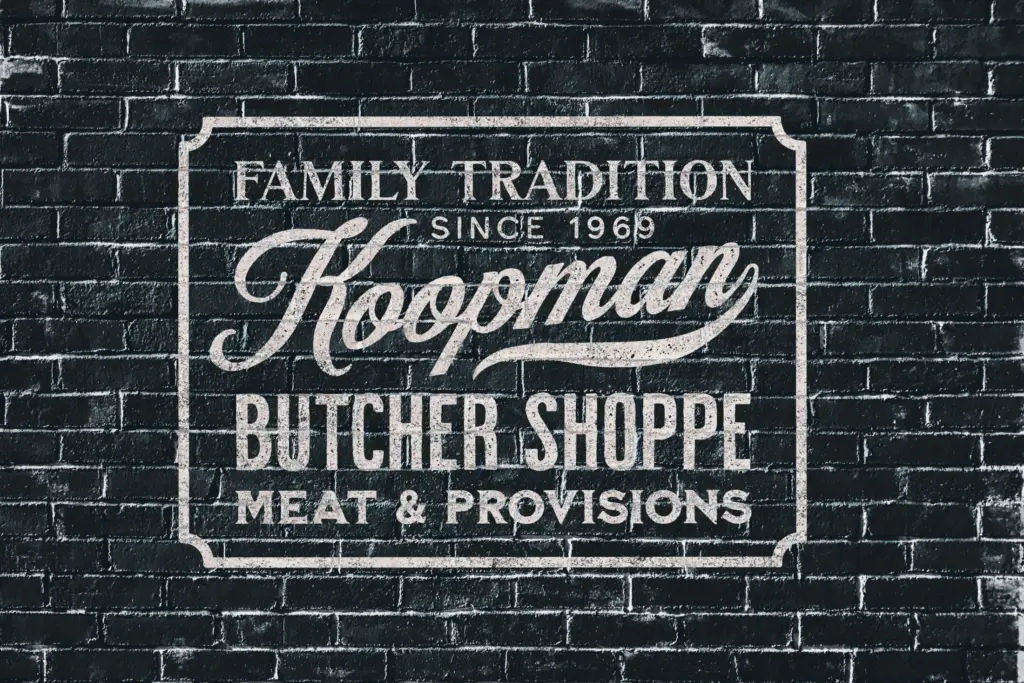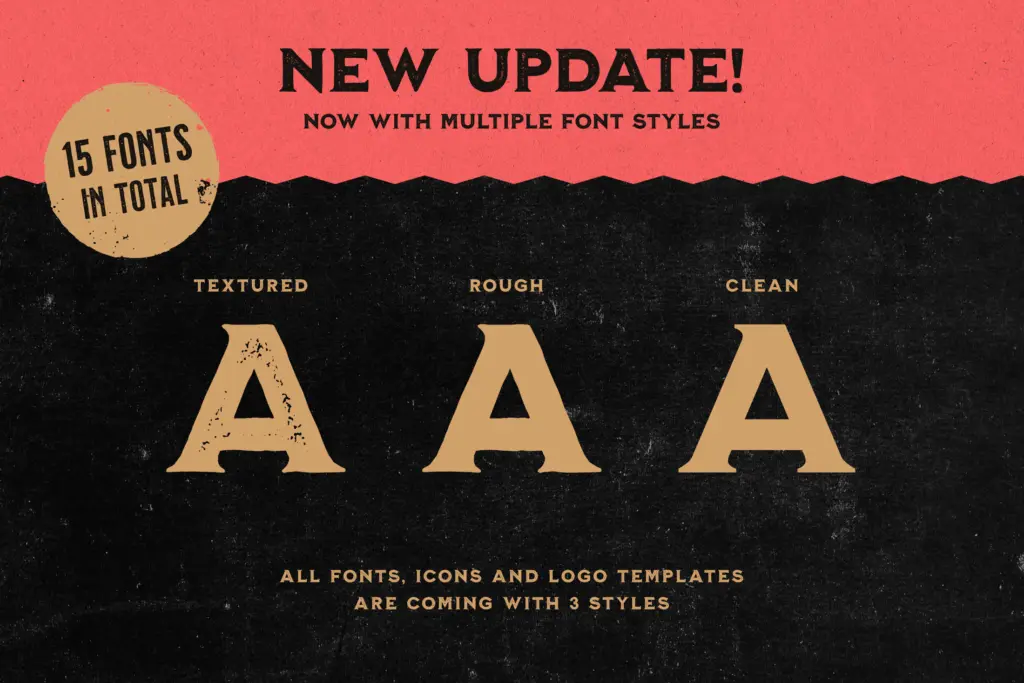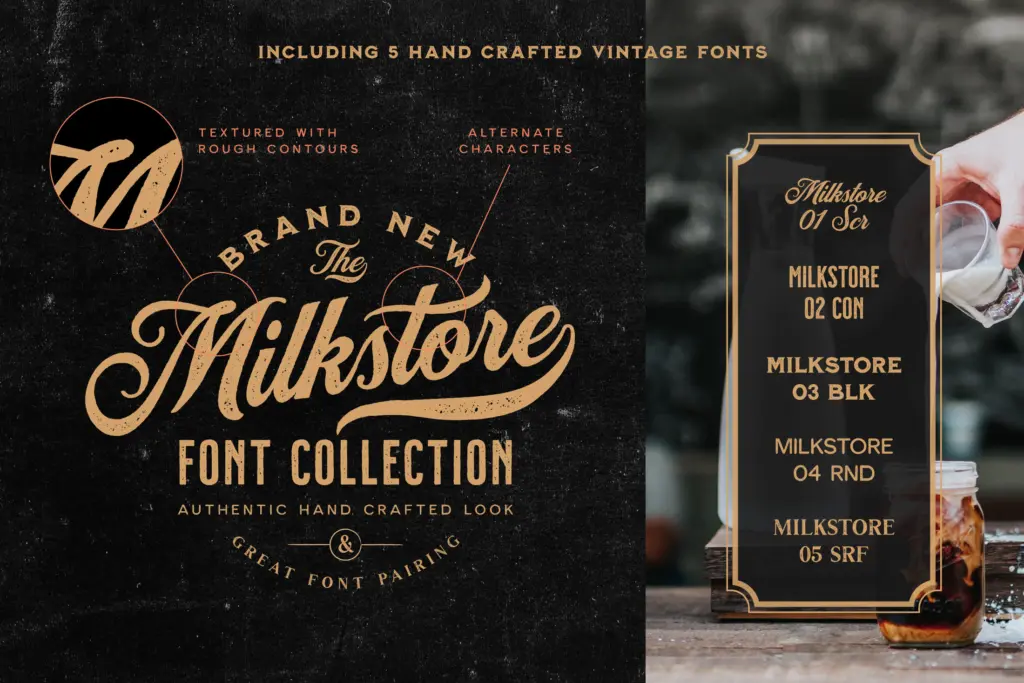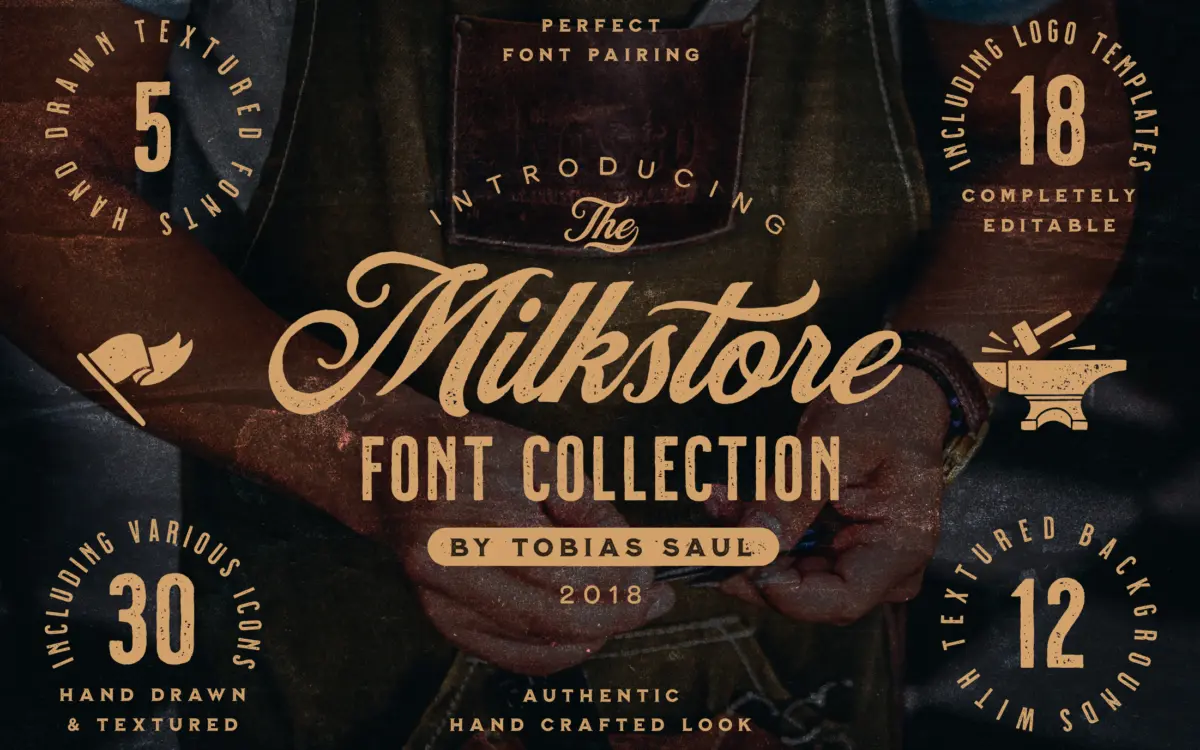
Milkstore is built around a single idea: hand-painted signage on old brick, the kind of lettering that’s been through weather and repainting. The collection gives you five related fonts rather than one typeface with weights, and that’s the right way to think about it. Milkstore 01 is the script-adjacent lead face with alternates and swashes, while 02 through 05 are uppercase companions in textured, rough, and clean finishes. The texture is applied convincingly — broken edges, uneven ink coverage, the occasional dropout — without tipping into noise. It reads as distressed rather than dirty, which is a harder trick than it sounds.
The drawing underneath the texture is straightforward brush-and-sign lettering: moderate contrast, blunt terminals, letterforms that lean slightly forward as if painted quickly. Nothing here is trying to be clever or contemporary. It’s a period piece, and it commits to that fully.
Milkstore 01 carries the feature load: alternates and swashes give it enough variation to avoid the repetition that plagues single-weight hand-lettered scripts, useful when a word repeats a letter and you don’t want two identical strokes sitting next to each other. The uppercase-only companions (02–05) are simpler tools — no lowercase, no swash system, just capitals meant for short bursts of text: a badge headline, a product name, a single word on a label. Accented characters cover Western European languages, and standard numerals and punctuation are included, so the set can handle basic multilingual branding work without falling over.
What you don’t get is a full working text family. There’s no body-copy weight, no extended lowercase across all five styles, and the alternates live only in 01. If your job needs a typeface that can also set a paragraph, this isn’t it — the whole collection is calibrated for short-form, large-scale use.
The bundled extras are worth noting even though they sit outside the type design itself: 18 Illustrator logo templates, more than 30 hand-drawn icons, and 12 textured backgrounds. These are practical production shortcuts more than typographic features, but they extend the collection’s usefulness for anyone building a full badge or label system rather than typesetting a single line.
This is a collection built for a specific job: craft packaging, brewery and bakery labels, farmers’-market branding, badge logos, anything trading on a handmade, slightly weathered feel. Milkstore 01 with its swashes works well as a signature word or wordmark. The uppercase styles are better suited to supporting text — a tagline, an established-since date, a small badge ring of copy — where their texture reads clearly without needing fine detail to survive.
It’s not a font for interface work, long-form editorial setting, or anything that needs to stay legible at small sizes on screen; the texture and irregularity that make it charming at poster or label scale will just look muddy in a footer. Keep it to display sizes and it does its job cleanly.
- The texture reads as genuinely hand-painted rather than digitally distressed.
- Swashes and alternates on the lead script keep repeated letters from looking copy-pasted.
- Bundled logo templates and icons speed up full badge-design jobs, not just type setting.
- No lowercase or full character depth on the four uppercase companion fonts limits them to short headline use.
- The whole set is tied to one narrow aesthetic, so it won't stretch into unrelated branding work.
Milkstore does one thing — weathered, hand-painted sign lettering — and does it with genuine texture rather than a filter effect. It's a display-only toolkit, not a working type family, so its usefulness depends entirely on how often you need that specific vintage-craft look.